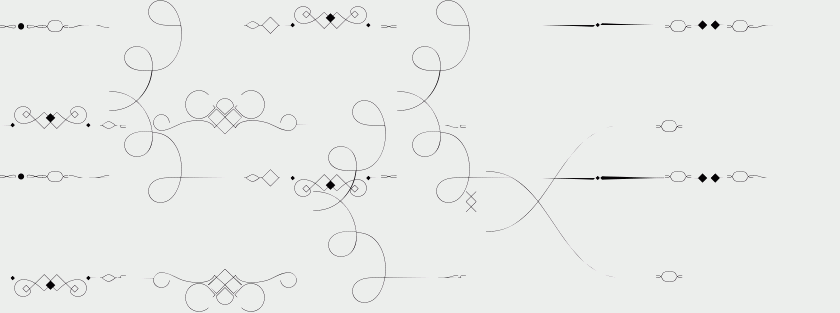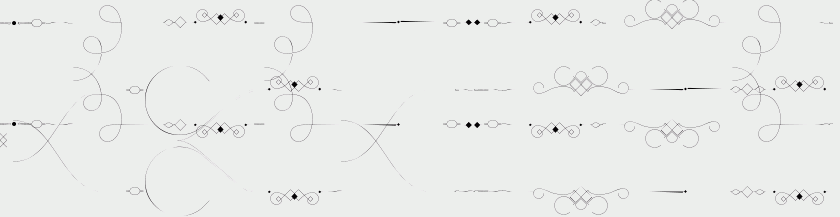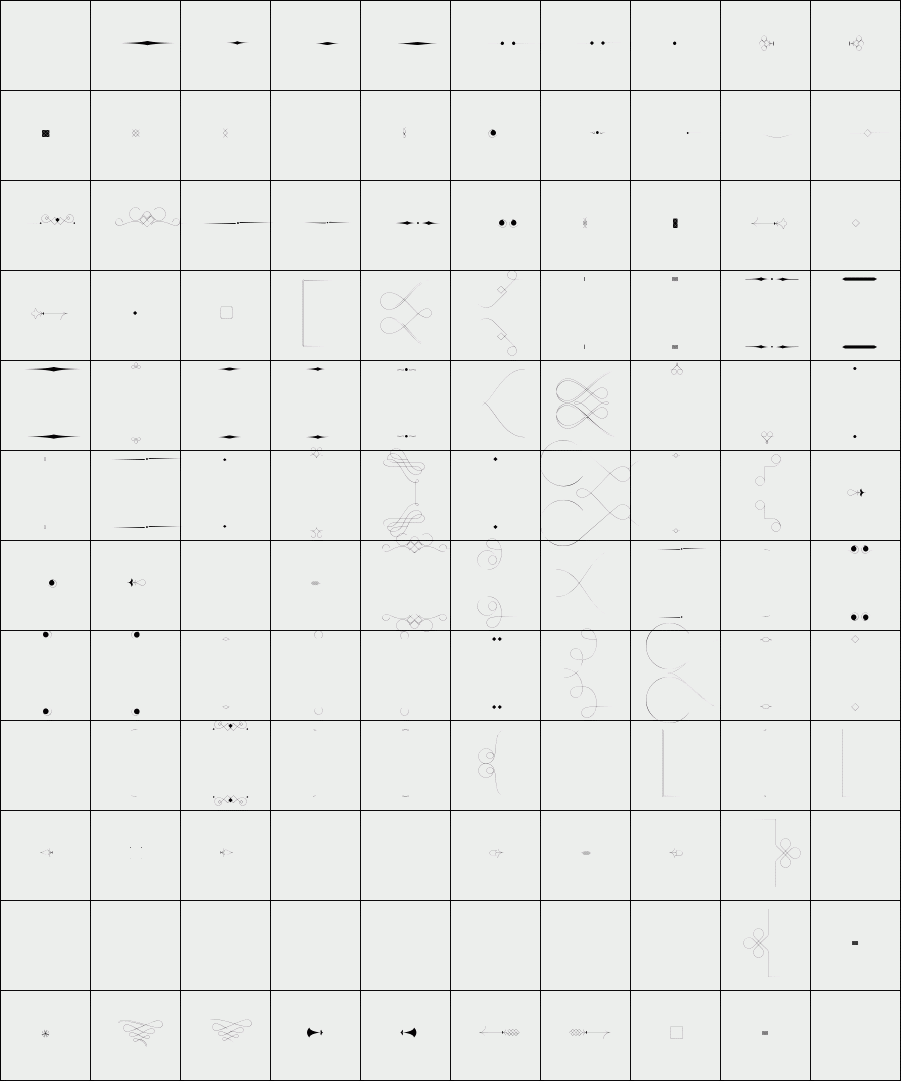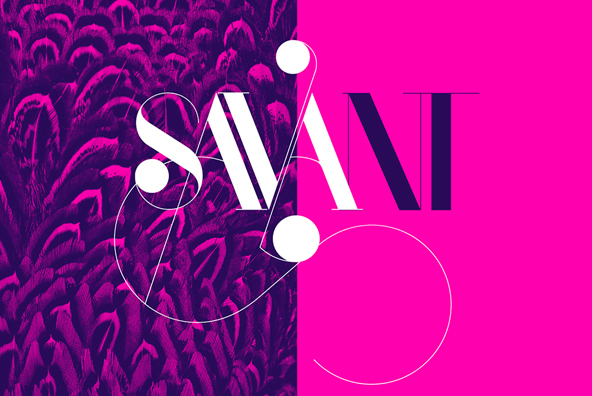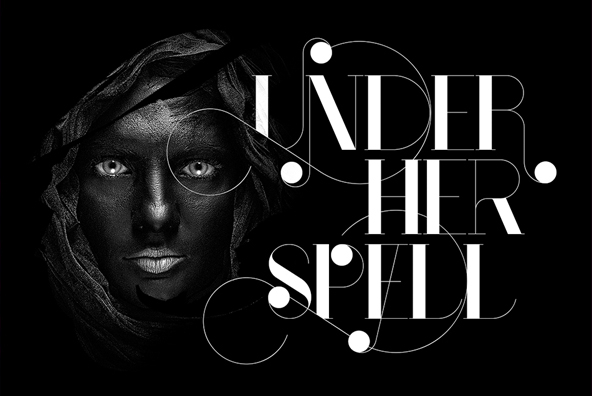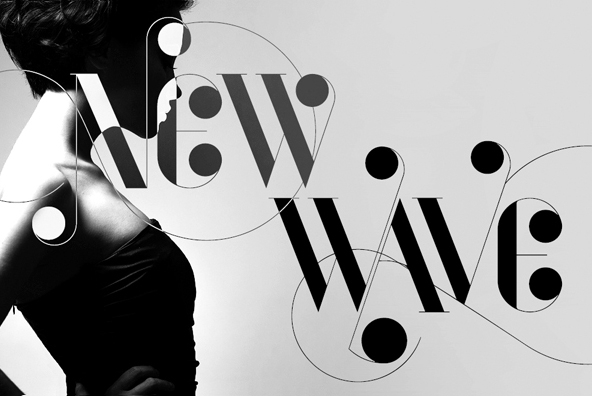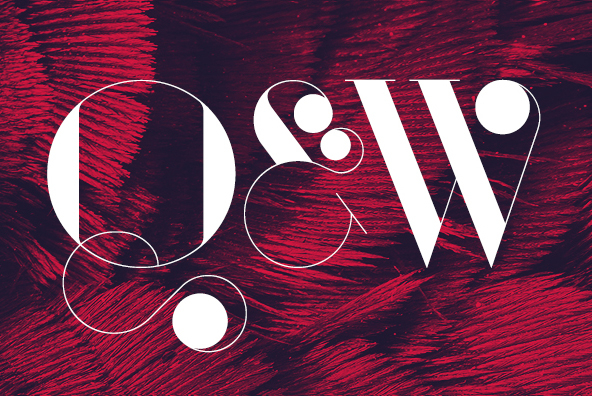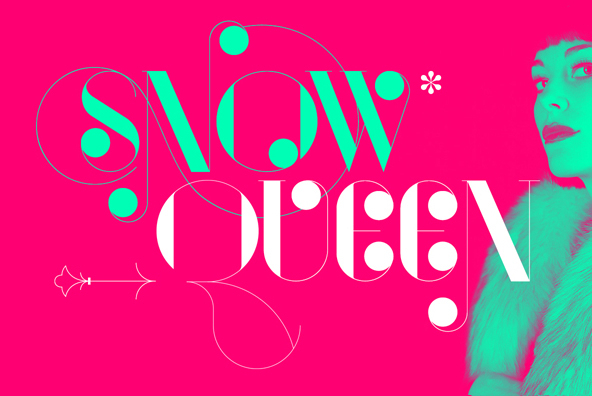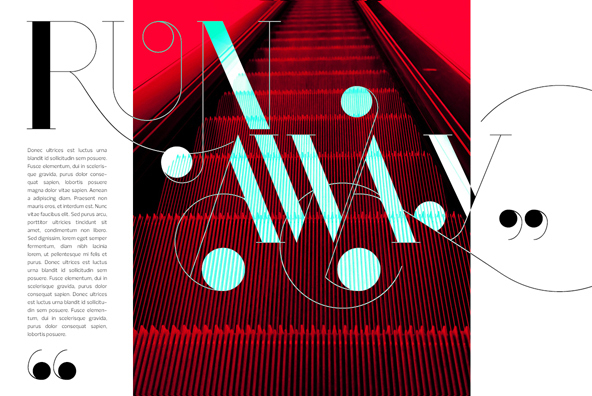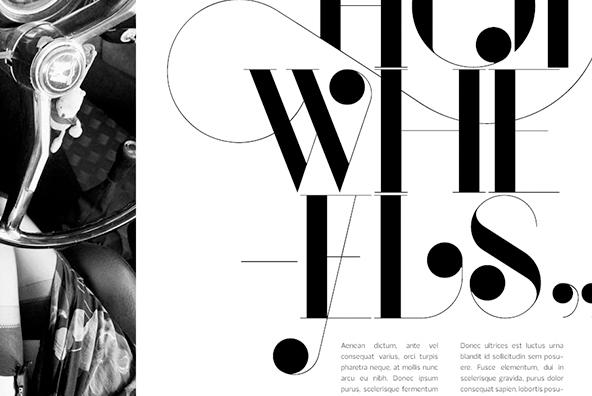
Port
/ Port Ornaments
Port is an experimental Didone typeface with a modern twist, inspired in the well known forms of typography masters such as Bodoni and Didot and the exuberance and elegance of calligraphy typefaces.
Port melts the straight lines and strong contrasts of the Didone typefaces with the elegant lines of calligraphy in a geometric way, resulting in exuberant characters with geometric swashes that can be combined in countless ways.
The result of this experiment is Port, an unique and rich display typeface meant to be used on big sizes and it’s main perk is the amount of alternative characters it features. Port is Open-Type programmed and includes hundreds of alternates, from swashes to titling alternates, ligatures and stylistic sets with each character having a thin version of itself, giving complete freedom to all your creative needs.
Port is available in several flavours: Port Regular, being the base version and featuring the whole base character set; Port Regular Decorated, featuring richer forms and containing more ornamentated and more extravagant characters; Port Medium and Port Medium Regular, designed for the occasions you need a bit more thickness and the decoration variants: Port Ornaments, containing a wide set of elements meant for the creation of fillets, vignettes and fleurons, resulting in an almost infinite number of possible combinations to embellish your designs and Port Words, a set of some of the most common words used in English, Spanish, French, German, Italian and Portuguese.
Designer: Joao Oliveira